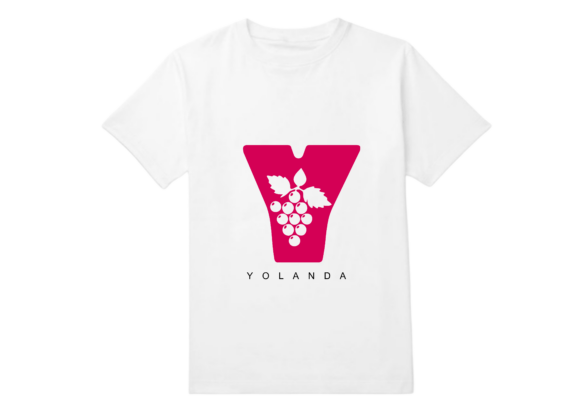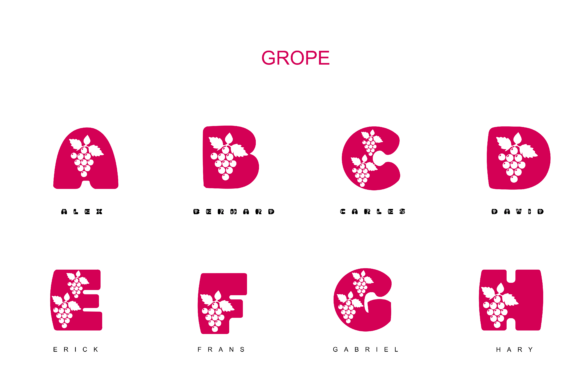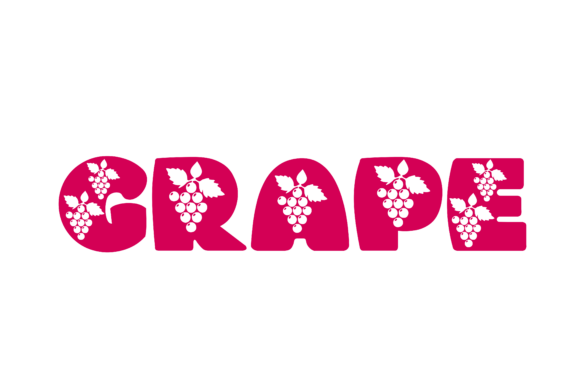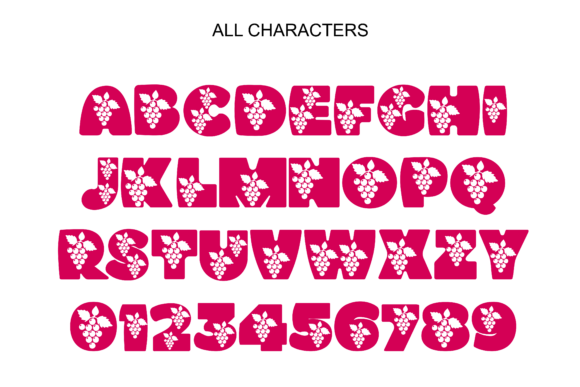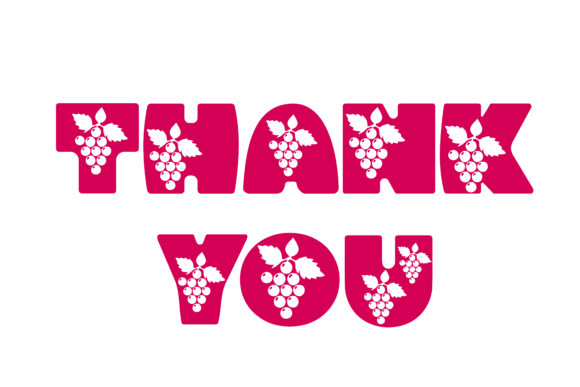
Introduction to Grope Font
Have you ever stared at a blank design canvas, feeling stuck and unsure of how to bring your creative vision to life? For many designers, this is a familiar moment of frustration. But what if you had a secret weapon to make your designs pop? Enter the Grope Font, a game-changing typography solution that’s about to revolutionize your creative projects.
This stunning font is more than just a pretty face – it’s a powerful design resource that can elevate your branding, packaging, and marketing materials to new heights. With its vibrant grape cluster illustrations, the Grope Font is the perfect choice for food and beverage brands, fruit packaging, vineyard marketing, or kids’ nutrition products. And the best part? It’s available for a free download, making it an accessible high-quality design solution for any creative project.
Key Features of Grope Font
- Unique, high-quality design for creative projects, perfect for adding a touch of elegance to any visual content.
- Features a transparent background, allowing for seamless integration with any background image or color.
- Includes a large character set, with over 200 glyphs, covering a wide range of languages and characters.
- Designed at a high resolution of 300 DPI, ensuring crisp and clear text even at large sizes.
- Perfect for use in a variety of creative projects, from logos and branding to posters and digital graphics.
Honest Review: Grope Font
As a designer, I’m always on the lookout for high-quality design resources to elevate my creative projects. Recently, I had the chance to try out the Grope Font, and I’m excited to share my honest review.
What works well: ✨ The Grope Font is incredibly versatile, with a wide range of styles and weights that can be used to create a professional look for any project. The transparent background is also a nice touch, making it easy to overlay the font on top of other design elements. Plus, it’s a free download, which is always a bonus!
- Wide range of styles and weights
Limitations: ⚠️ While the Grope Font is overall a great resource, I did find that it’s not ideal for very small text sizes. The font can appear a bit blurry or pixelated when scaled down, which may not be suitable for all design projects.
Overall impression: I’m really impressed with the Grope Font, and I think it’s a great addition to any designer’s toolkit. With its high-quality design, versatile styles, and transparent background, it’s perfect for a wide range of creative projects. Just be aware of the potential limitations with small text sizes, and you’ll be good to go!
To get the most out of the Grope Font, be sure to use it in conjunction with other high-quality design resources. Experiment with different font sizes, colors, and combinations to find the look that works best for your project.
The Grope Font is a versatile design resource that can be used in a variety of projects, including:
– Branding and logos
– Brochures and flyers
– Social media graphics
– Website design